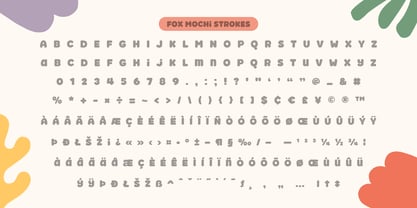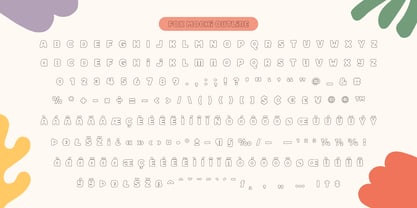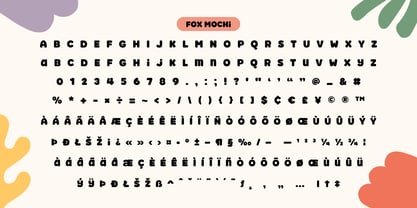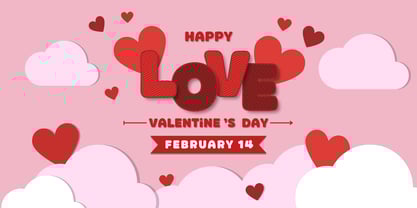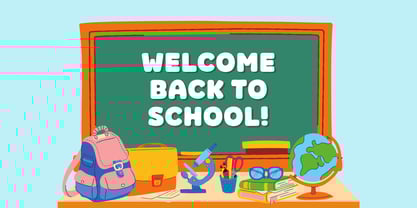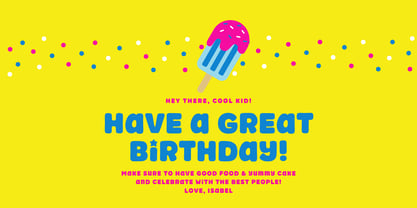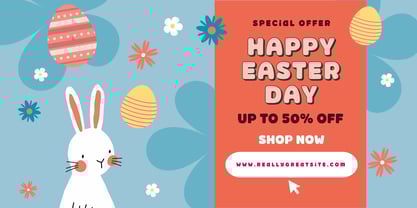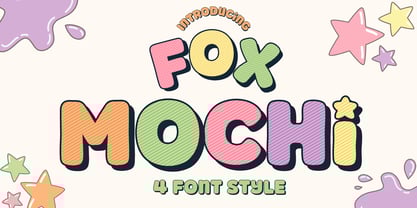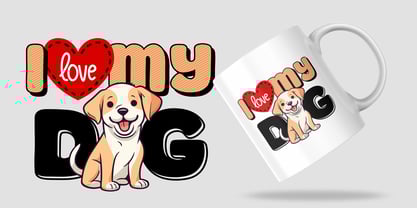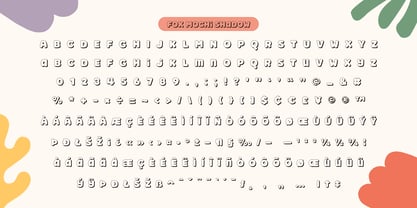
Fox Mochi
The Fox Mochi Font Family was designed by Rattana Rattanawan and published by Fox7. Fox Mochi contains 4 styles and family package options. More about this family
Fox Mochi is a delightful, hand-drawn font designed to bring joy and creativity to your projects. With its soft, rounded shapes and playful aesthetic, this font is perfect for designs that need a cute and cheerful touch! Whether you're creating branding materials, kids' products, greeting cards, or social media content, Fox Mochi will make your text stand out.
✨ Features:
🌸 4 Unique Styles: Regular, Strokes, Outline, and Shadow
🌸Handcrafted Look: A soft, rounded design with a friendly and fun vibe
🌸Perfect for: Logos, posters, product packaging, apparel, and creative projects
Let Fox Mochi add a sweet and joyful charm to your designs! 🍡✨